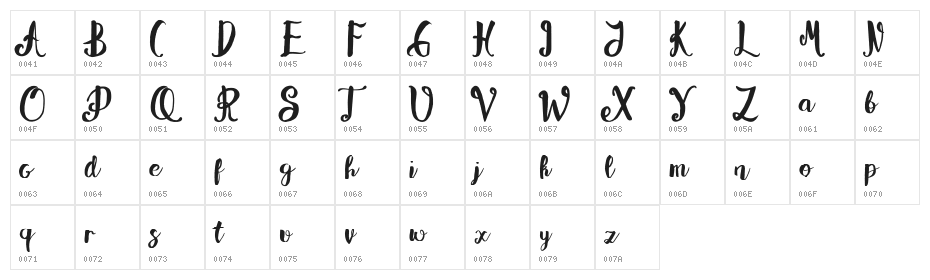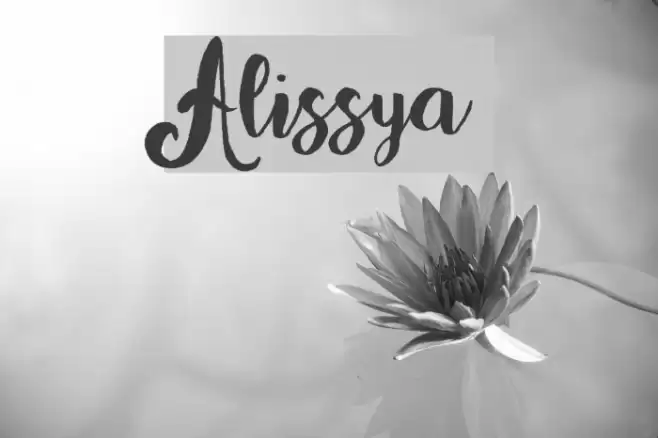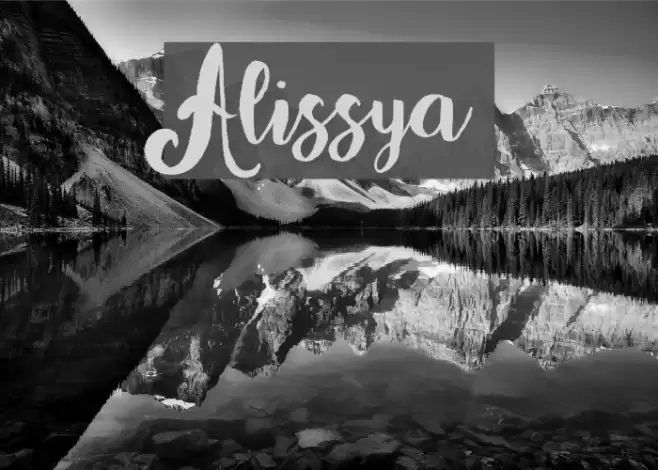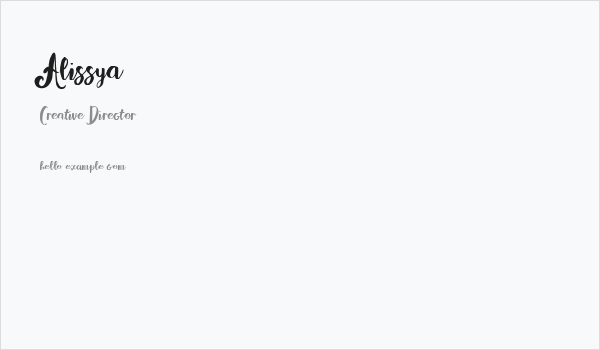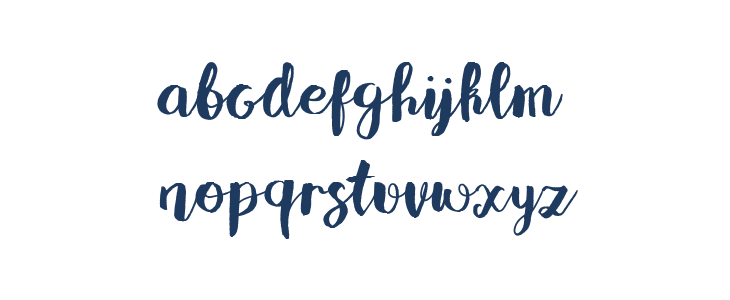
Alissya Font
Alissya Description
This font exhibits a bold and expressive style with a handwritten script appearance. The characters are fluid and dynamic, featuring thick strokes and playful curves that give it a lively and artistic feel. The uppercase letters are particularly striking, with exaggerated loops and swirls that add a touch of elegance and flair. The lowercase letters maintain a consistent flow, complementing the uppercase with their own unique charm. Overall, the font conveys a sense of creativity and spontaneity, making it ideal for projects that require a personal and artistic touch.
| Proposed Projects | Ideal for wedding invitations, greeting cards, artistic posters, and branding materials that require a personal touch. |